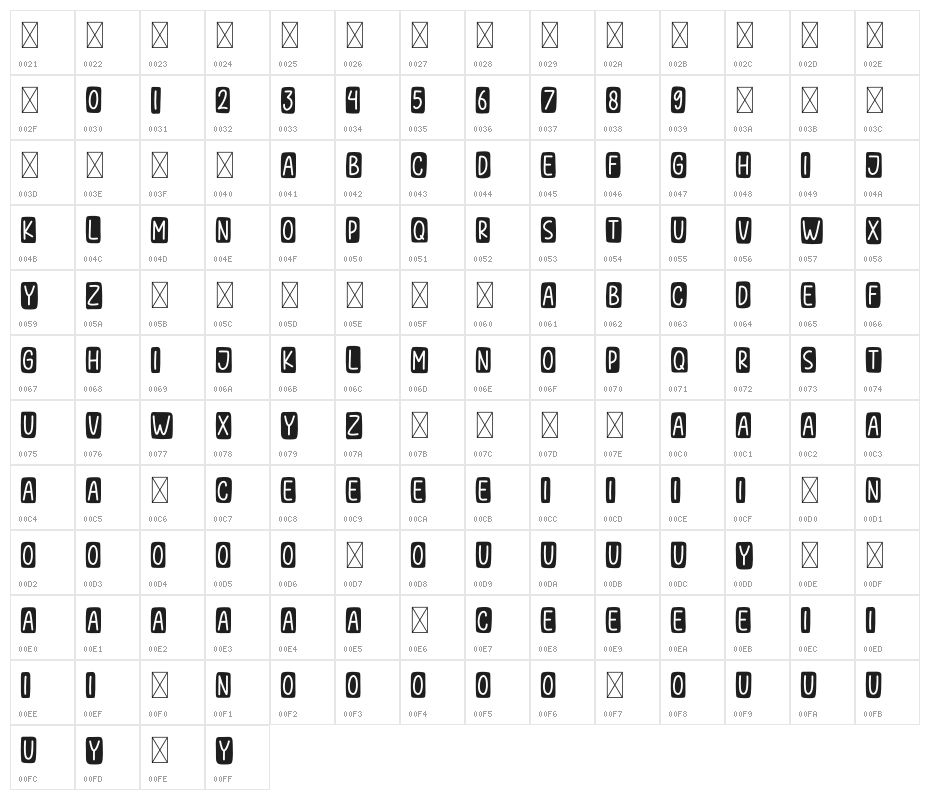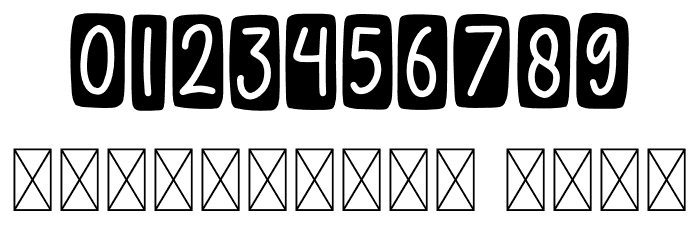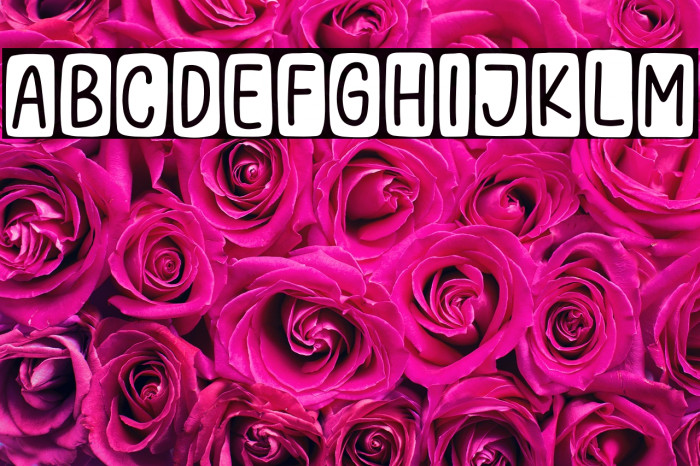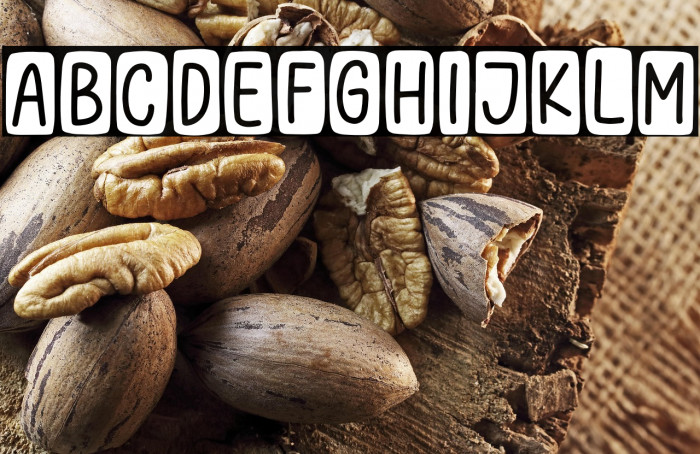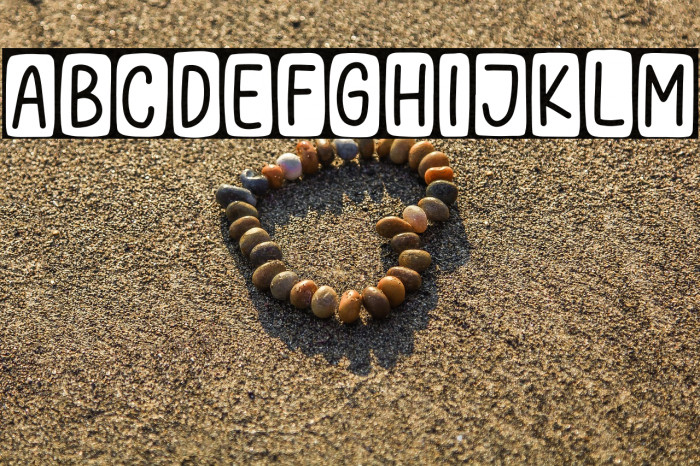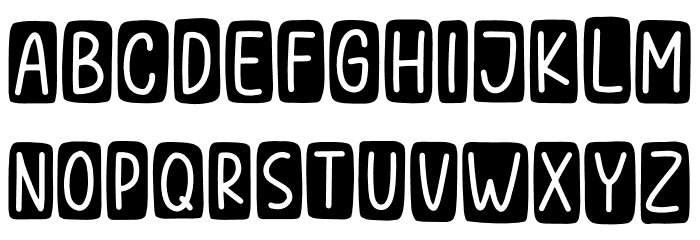
Hey Girls Font
Hey Girls Description
This font features bold, rounded characters enclosed within square-like shapes, creating a playful and eye-catching appearance. The letters are uppercase and lowercase, with a consistent thickness that adds to the boldness of the design. The numbers and special characters follow the same style, ensuring uniformity across all glyphs. The enclosed design gives each character a distinct presence, making it ideal for standout text. The overall look is modern and fun, suitable for projects that require a touch of whimsy and boldness.
| Proposed Projects | Ideal for children's books, playful branding, posters, and any design needing a bold, fun touch. |